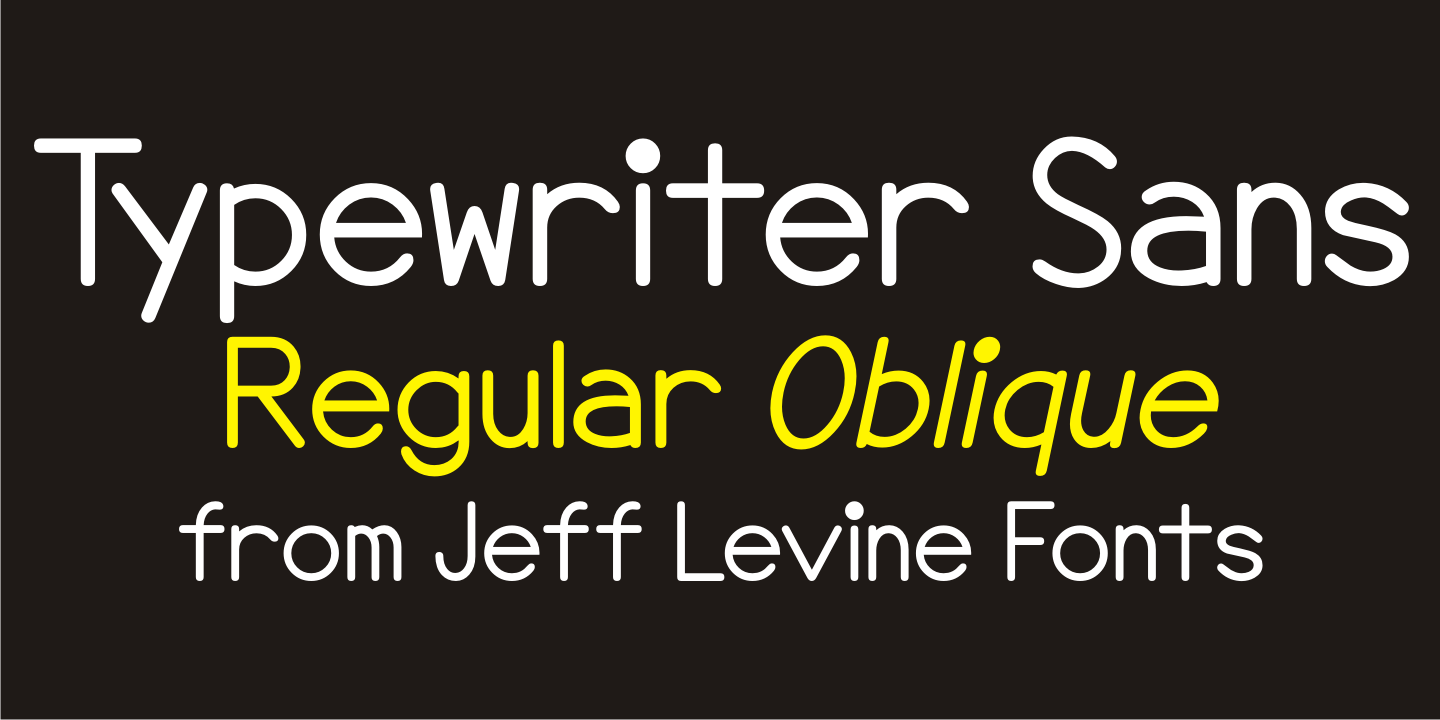
Looking for a typeface that blends vintage charm with contemporary simplicity? Typewriter Sans JNL Font Free Download is a unique sans-serif font inspired by classic typewriter styles but with a clean and modern twist. It’s ideal for editorial projects, branding, logos, stationery, and any design that needs a touch of nostalgia without losing modern legibility.
You can download Typewriter Sans JNL Font Free Download for free to test its distinctive balance of retro and minimalist design. For commercial use, be sure to purchase the proper license to ensure full legal compliance. With its monospaced-like structure and smooth lines, this font offers a perfect alternative to more rigid typewriter fonts, providing character while remaining versatile and readable.
Whether you're designing a writer’s blog, a vintage-themed app interface, or a minimalist branding kit, Typewriter Sans JNL Font Free Download delivers a timeless look with effortless style. It’s perfect for mixing old-school vibes with clean, digital-era layouts.